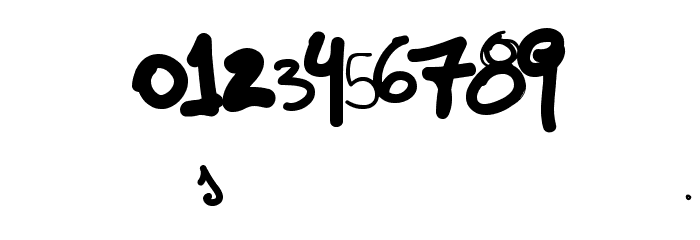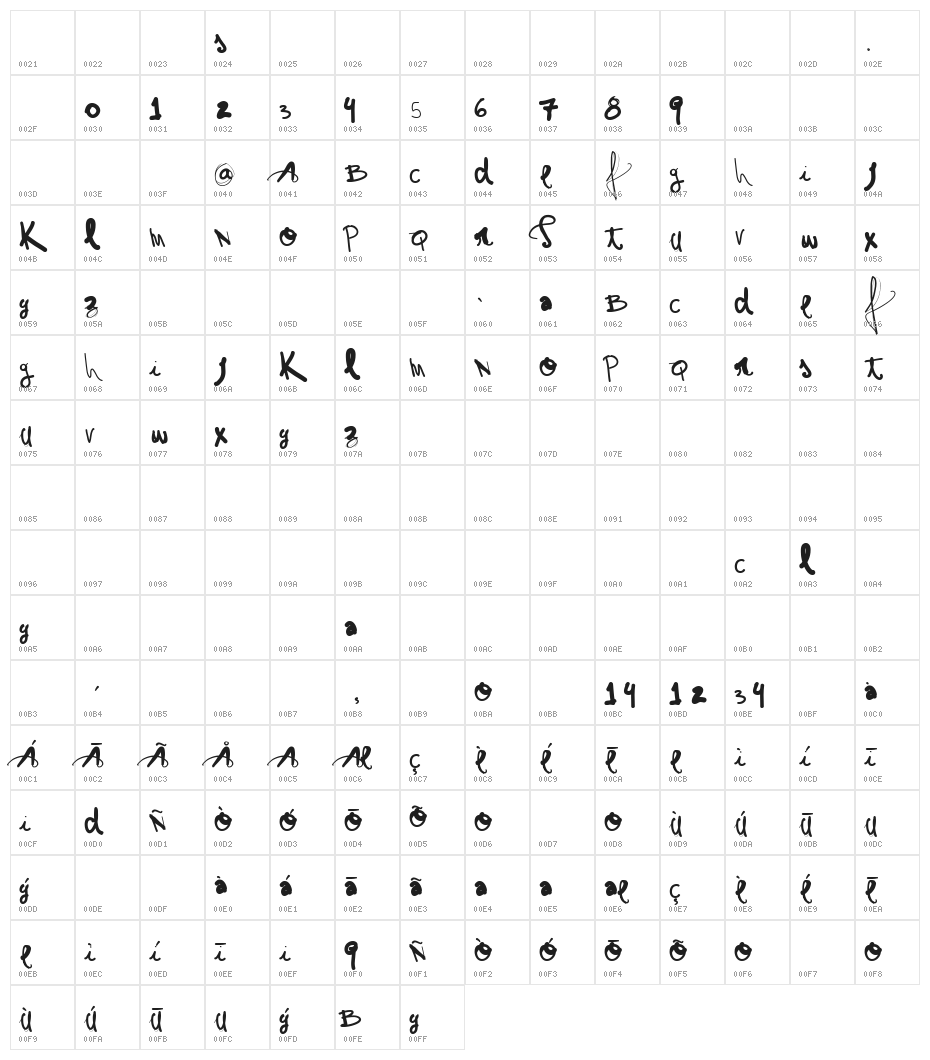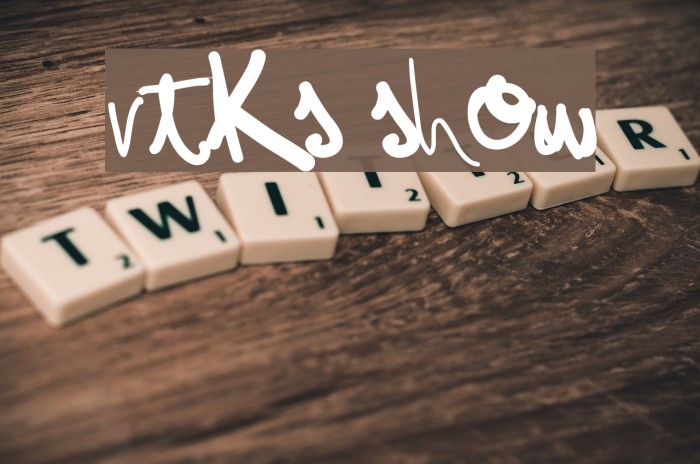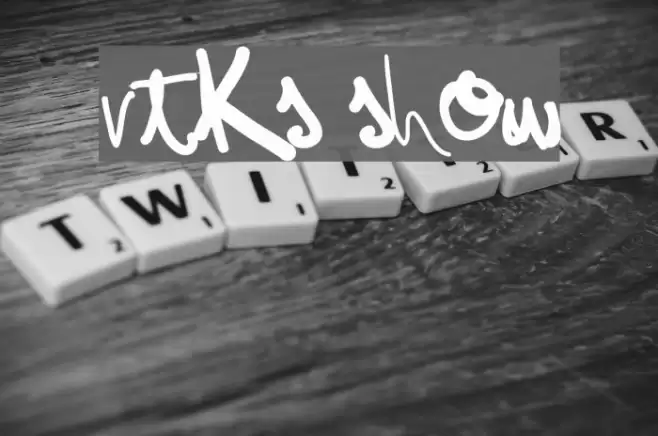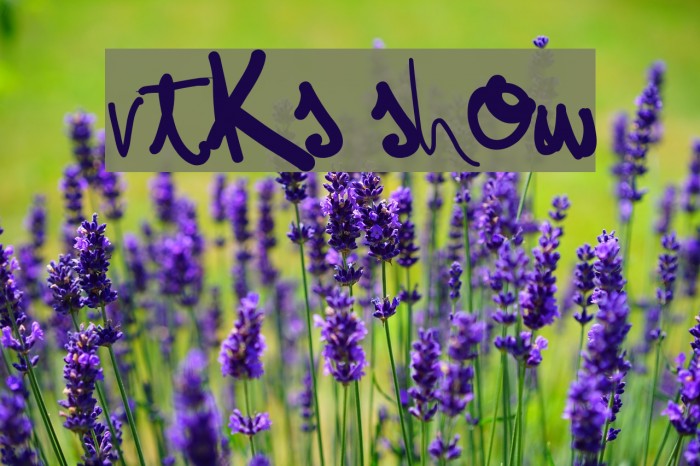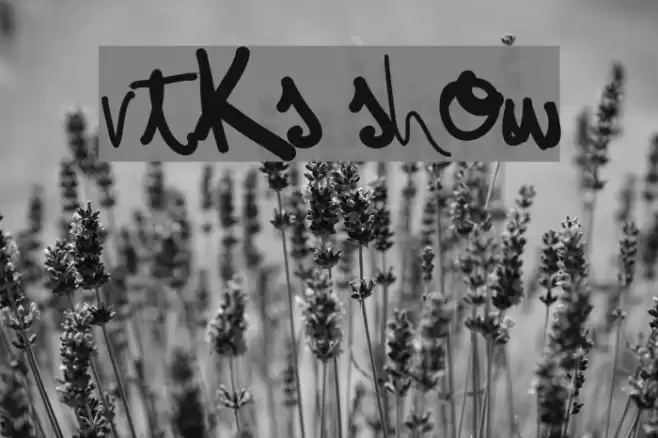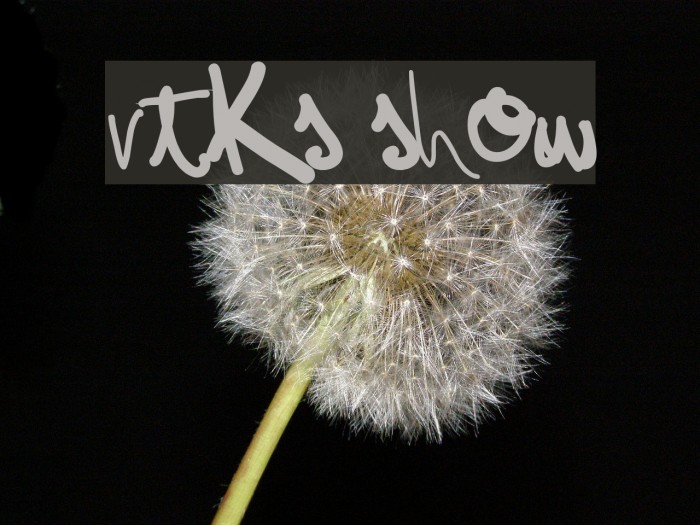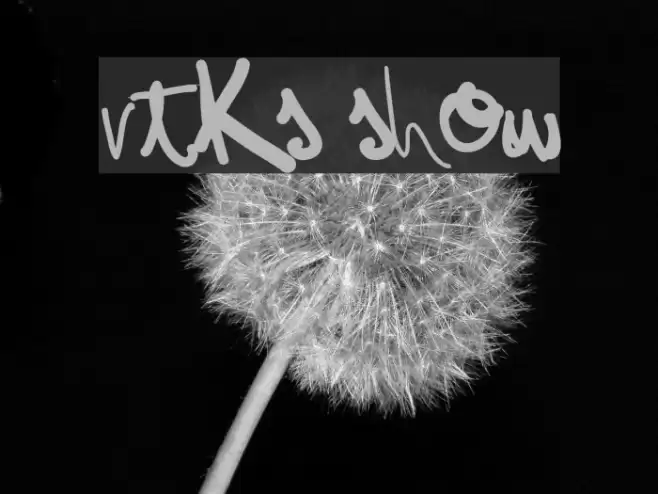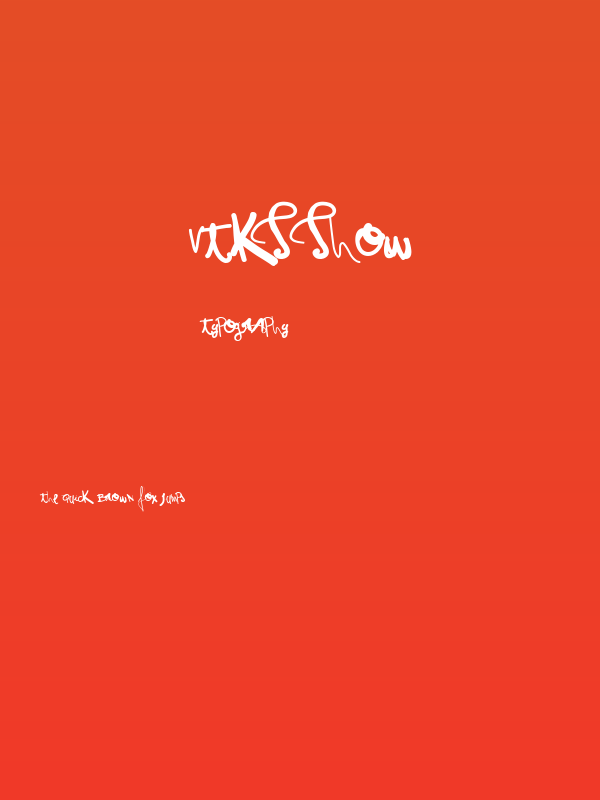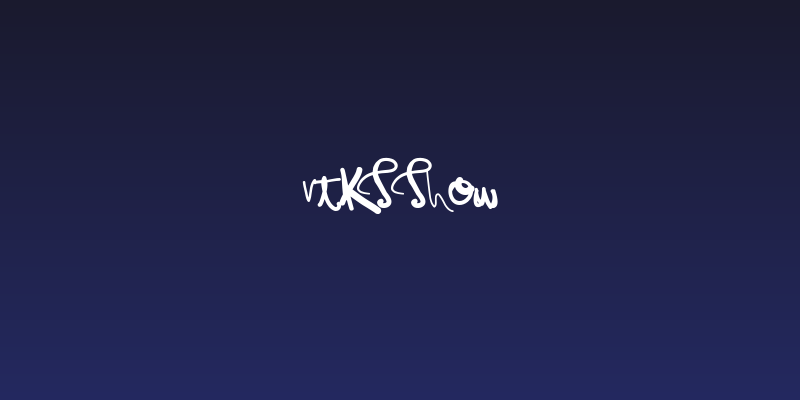
vtks show Font
This font exhibits a bold and expressive handwritten style, characterized by its thick strokes and dynamic curves. The letters are irregular and playful, giving a sense of spontaneity and creativity. The uppercase and lowercase letters are distinct, with some letters featuring exaggerated loops and flourishes. The numbers are equally bold, maintaining the energetic style of the alphabet. This font is ideal for projects that require a personal touch or a sense of artistic flair, such as posters, invitations, or branding materials that aim to stand out with a unique and lively appearance.
Use CaseLogos, Headlines
Proposed ProjectsIdeal for creative projects like posters, invitations, and unique branding materials.